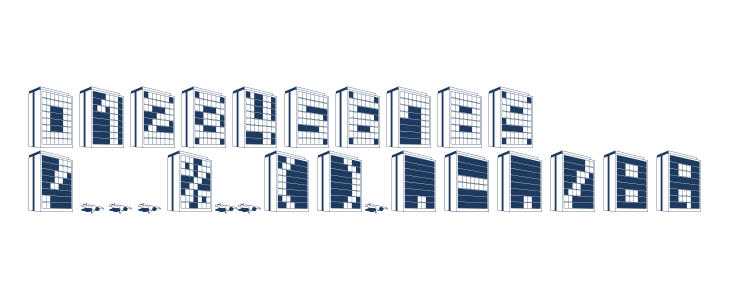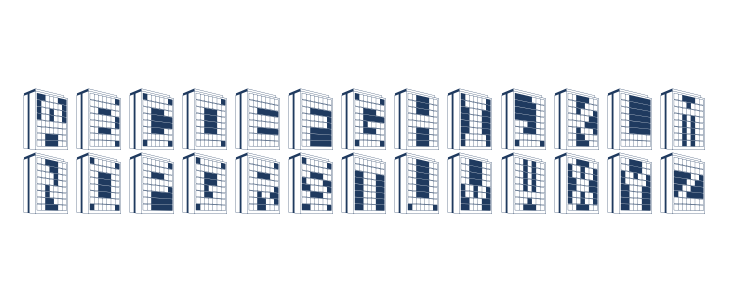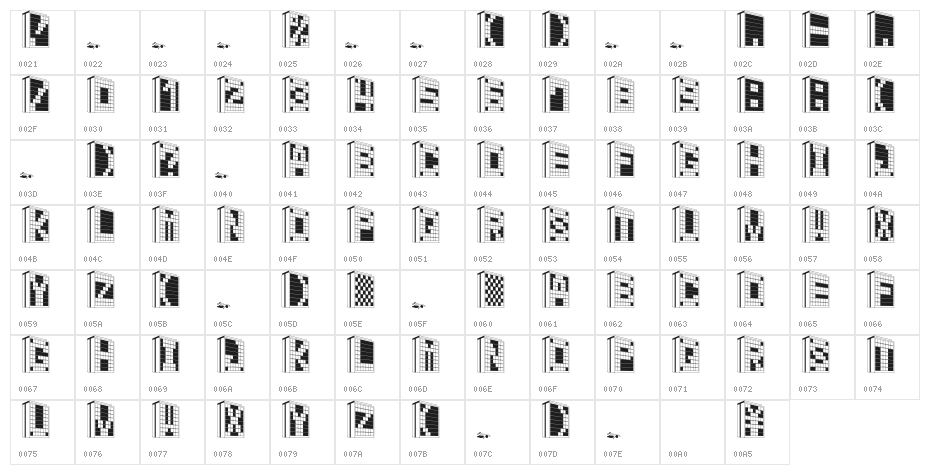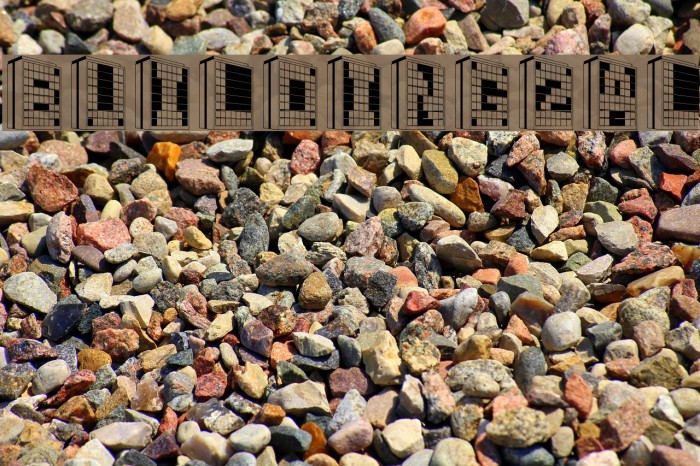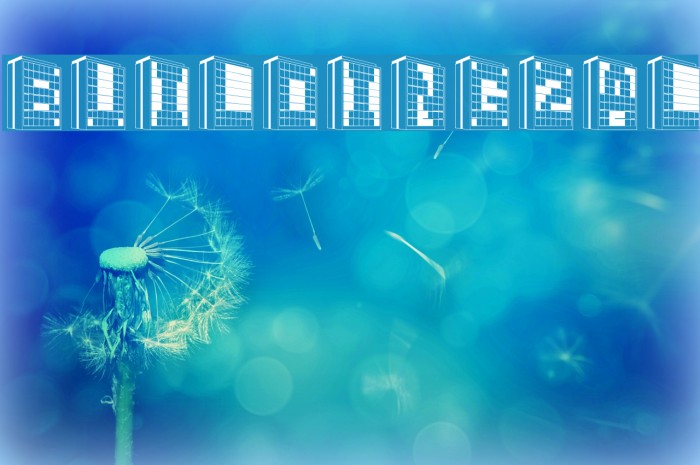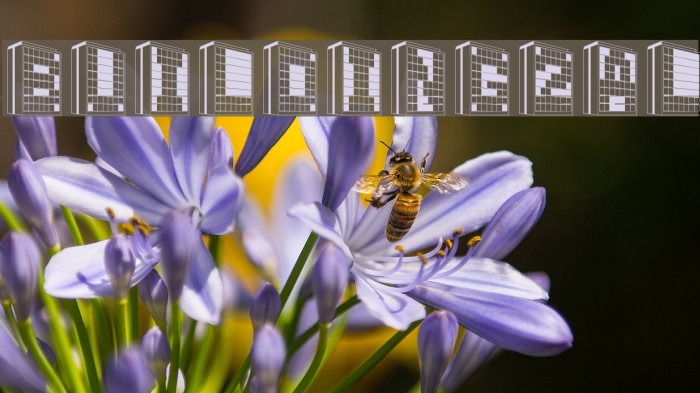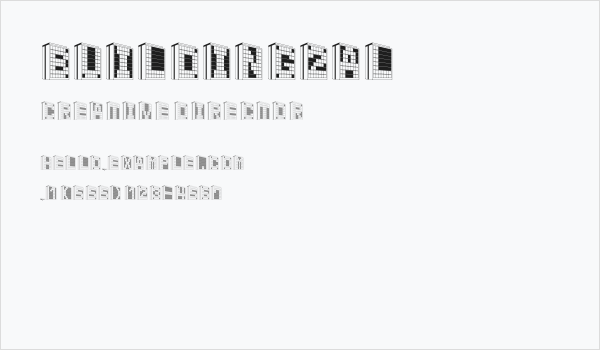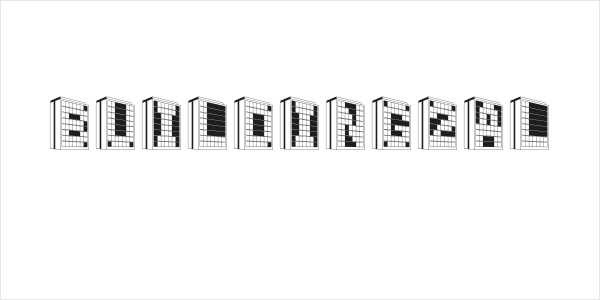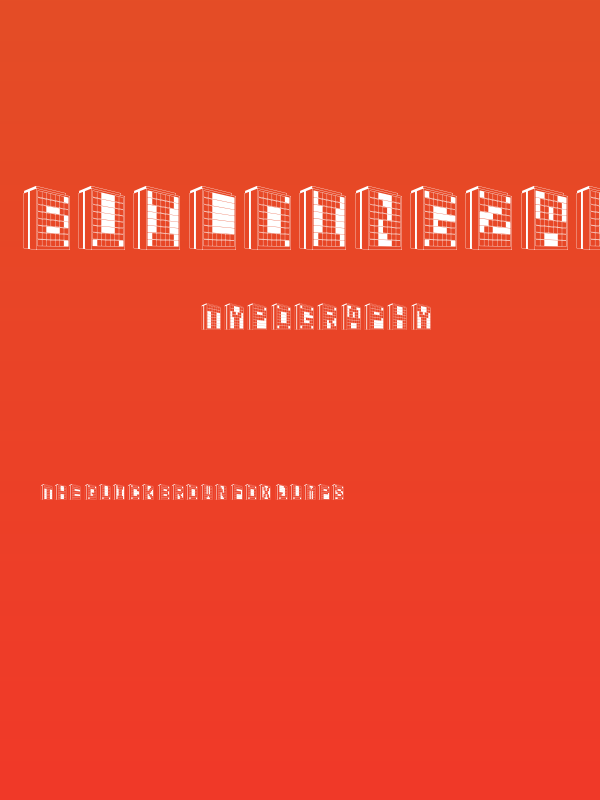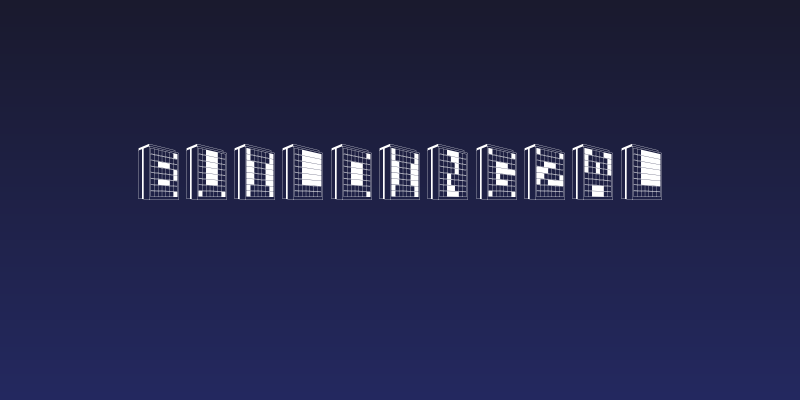
Building2AL Font
Building2AL Description
This font is a unique and creative display typeface that resembles architectural structures. Each character is designed to look like a building, complete with windows and a three-dimensional perspective. The letters and numbers are constructed with a grid-like pattern, giving them an urban and modern feel. The special characters also follow this architectural theme, adding a playful yet sophisticated touch. This font is ideal for projects that require a bold and eye-catching design, particularly those related to architecture, construction, or urban planning.
| Proposed Projects | Ideal for architectural branding, urban-themed posters, construction company logos, and modern design projects. |